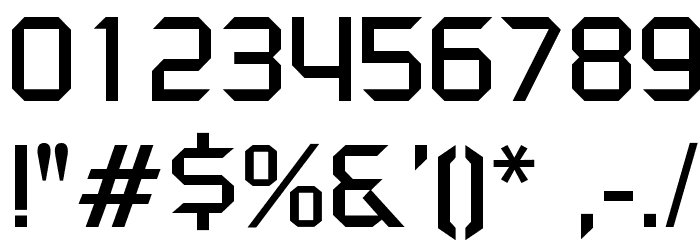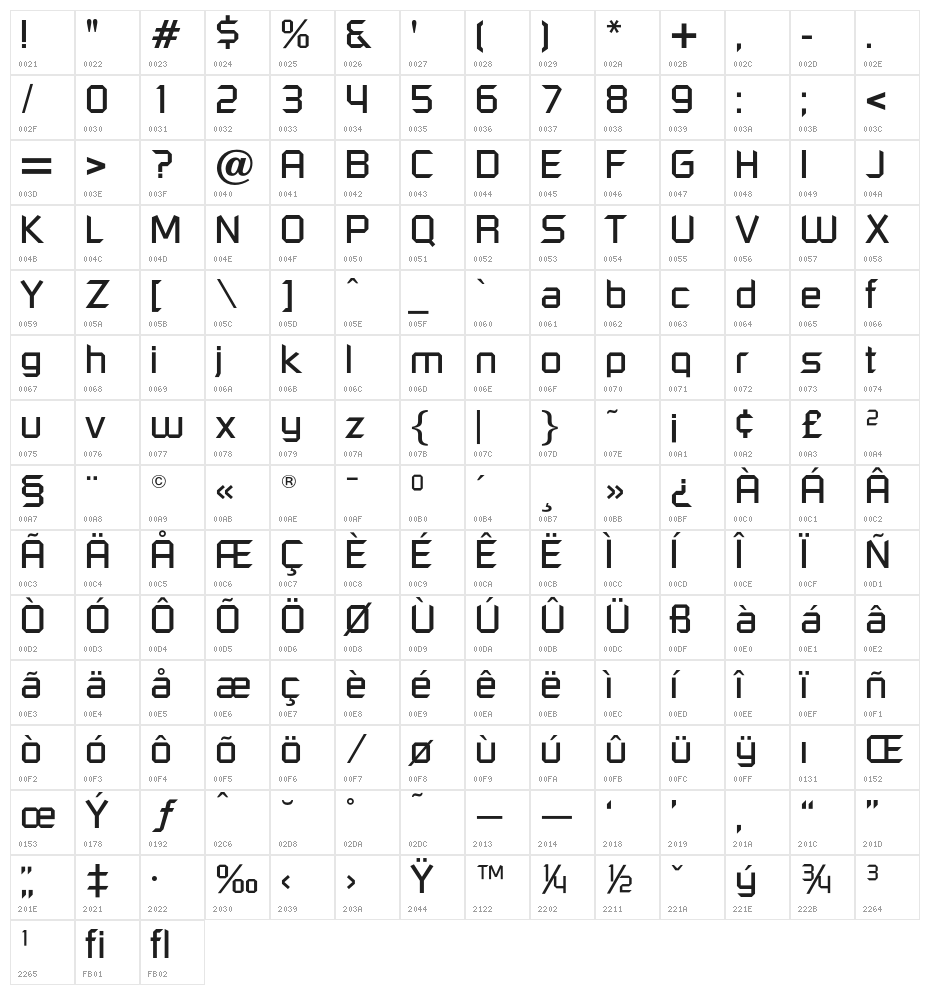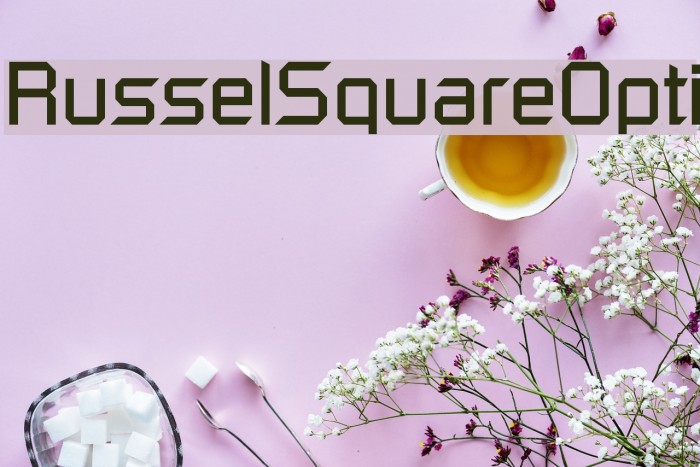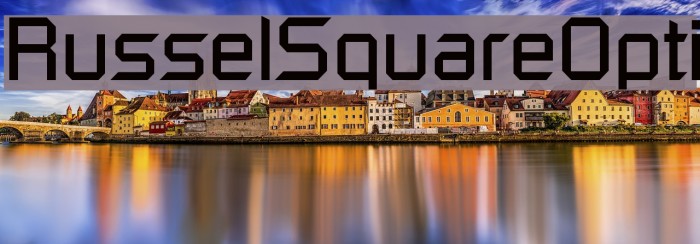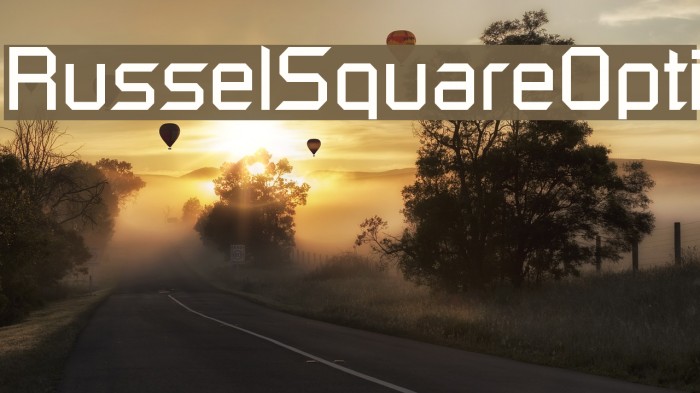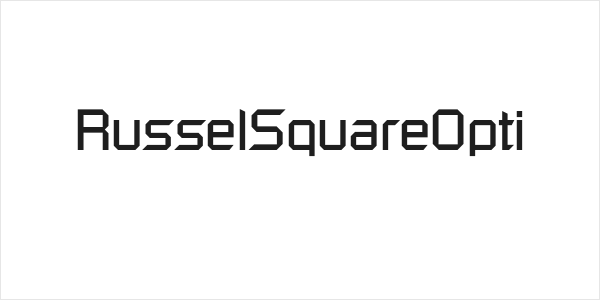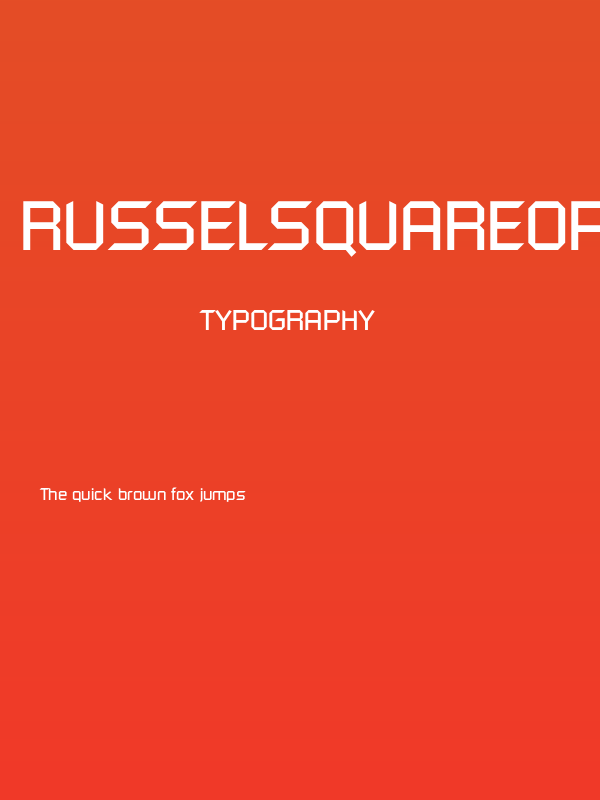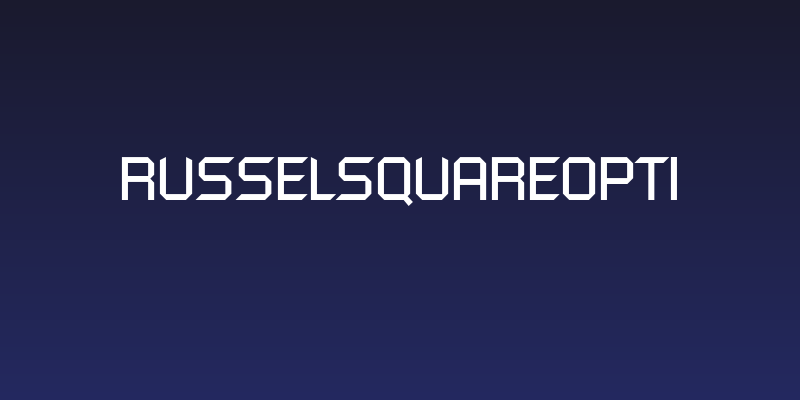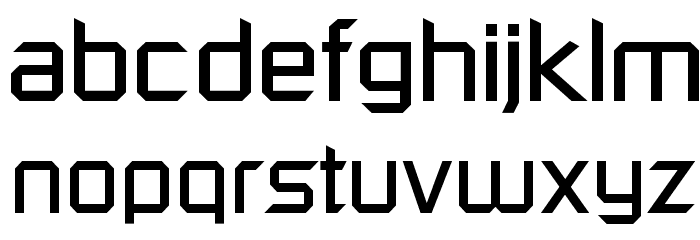
RusselSquareOpti Font
RusselSquareOpti Description
This font features a geometric and angular design, characterized by its sharp edges and modern aesthetic. The uppercase letters are bold and structured, with a uniform height that creates a cohesive look. The lowercase letters maintain the angular style, offering a unique twist on traditional letterforms. Numbers are consistent with the overall design, providing clarity and readability. Special characters are crafted with the same precision, ensuring they blend seamlessly with the rest of the font. The overall appearance is futuristic and technical, making it suitable for projects that require a modern and edgy feel.